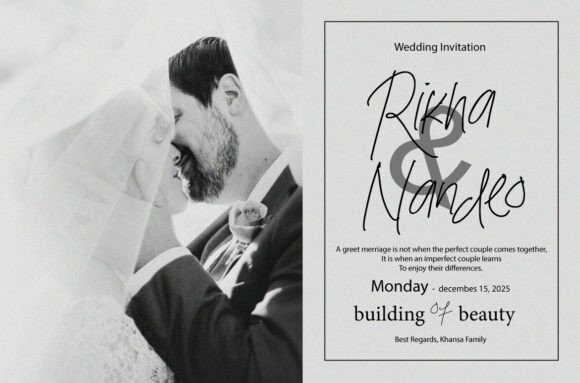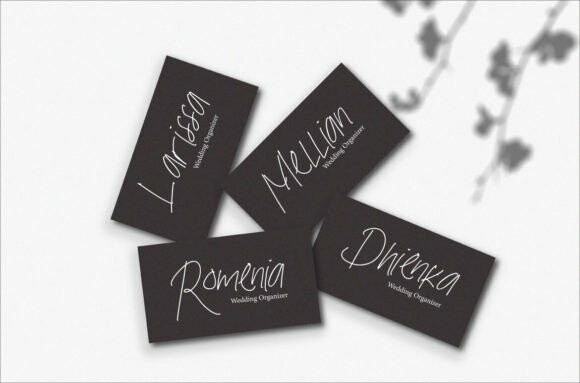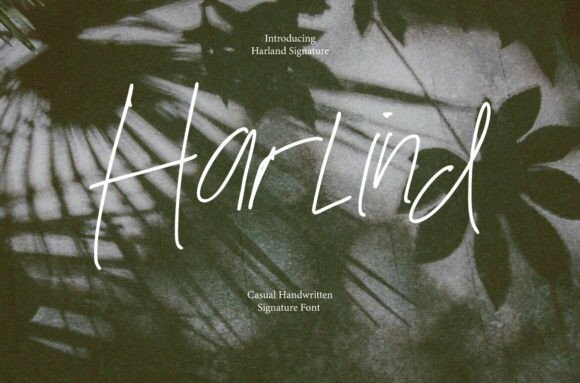
Harlind Font
Harlind Font – Signature Brush with handmade Signature style, decorative characters, and dancing baselines! Very beautiful for invitations such as greeting cards, branding materials, business cards, quotes, posters, and more!!